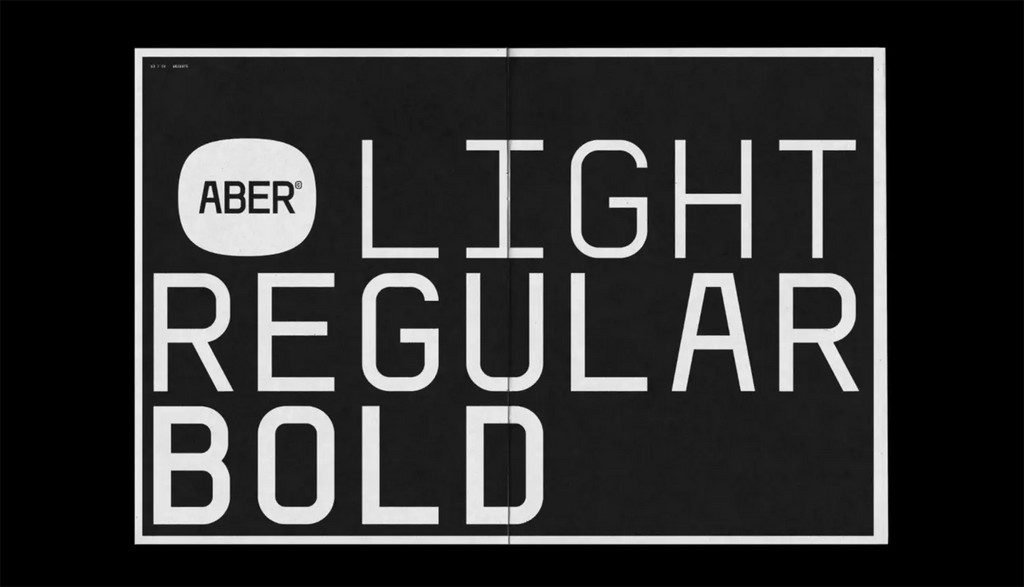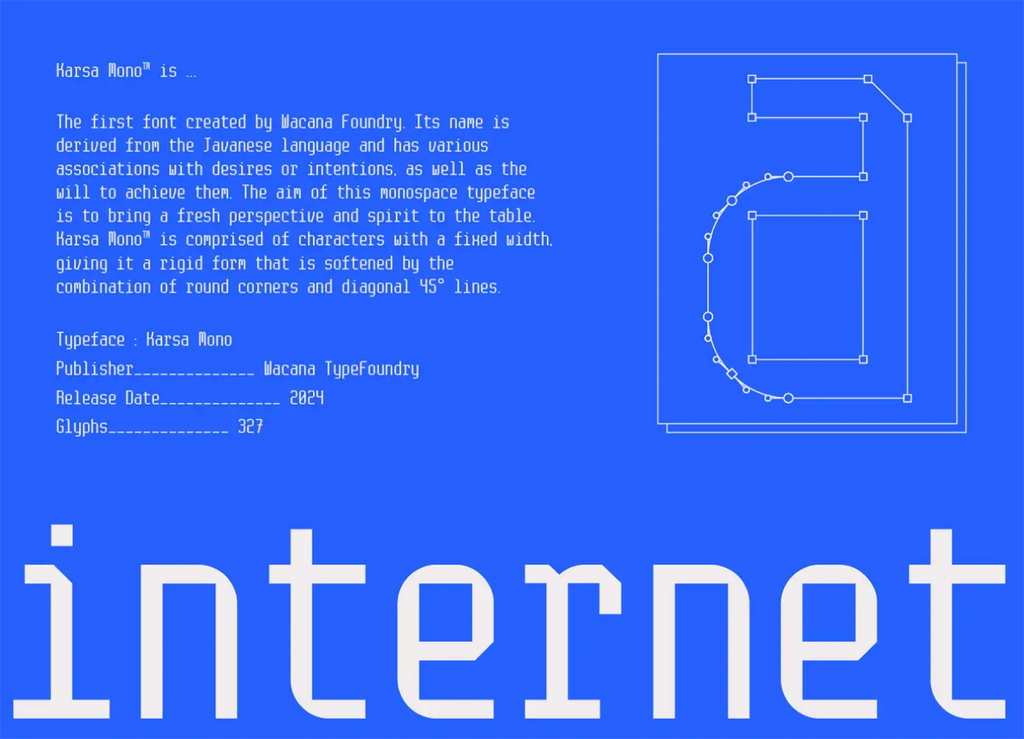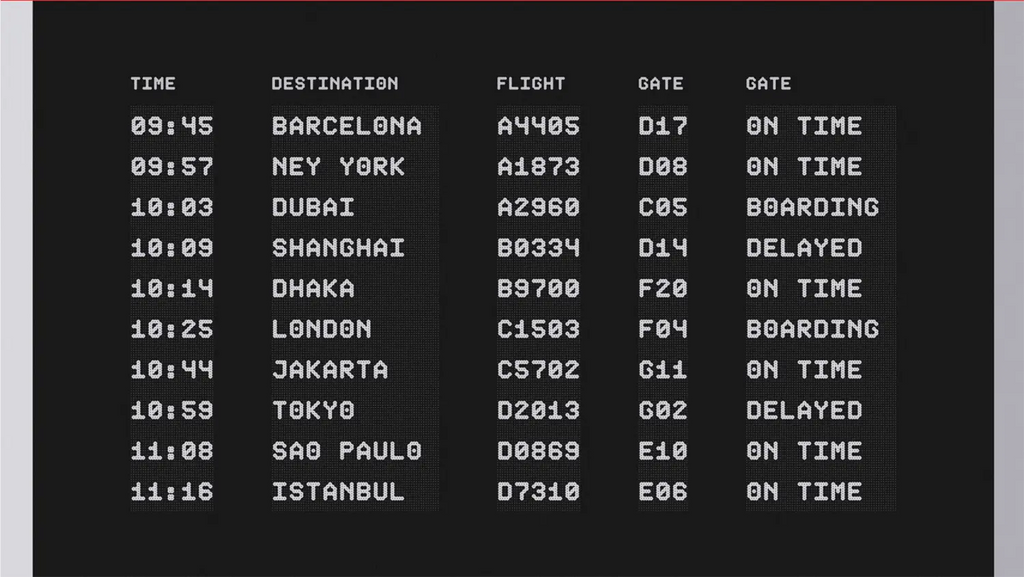
Monospaced Font: Basic Typography Guide for Designers
Monospaced fonts, also known as fixed-width or non-proportional fonts, hold a unique place in the world of typography. Unlike proportional fonts, where characters vary in width, monospaced fonts assign equal space to each character, creating a clean, grid-like alignment. This uniformity makes them ideal for certain applications, such as coding, data presentation, and technical design, where precision and clarity are paramount.
For designers, monospaced fonts offer more than just functionality; they provide a distinctive aesthetic that combines retro charm with modern minimalism. Rooted in the history of typewriters, these fonts evoke a sense of nostalgia while maintaining relevance in contemporary design. Their structured appearance makes them a favorite choice for projects that require a technical, innovative, or minimalist touch.
Typography, at its core, is about creating harmony between text and design. Monospaced fonts allow designers to experiment with spacing, rhythm, and contrast, offering creative possibilities for digital and print media alike. Whether used in branding, web design, or editorial layouts, they bring a unique balance of form and function to any project.
In this guide, we will explore the basics of monospaced fonts, their key features, and practical tips for designers looking to incorporate them into their work effectively.
Understanding Monospaced Fonts
Monospaced fonts, also referred to as fixed-width fonts, are a distinct type of typography where every character occupies the same amount of horizontal space. Unlike proportional fonts, where letters like "i" are narrower than "w," monospaced fonts ensure uniform spacing regardless of the character. This unique characteristic creates a structured and organized appearance, making monospaced fonts particularly effective for specific applications.
Historically, monospaced fonts gained prominence during the typewriter era. Their equal spacing was a mechanical necessity, as typewriter keys were designed to align characters uniformly. This legacy has carried forward into the digital age, where monospaced fonts are celebrated for their clarity and simplicity.
For designers, understanding monospaced fonts is essential for creating designs that require precision and consistency. They are commonly used in coding environments because the uniform spacing helps developers easily spot syntax errors. Additionally, monospaced fonts excel in tabular data and grid-based designs, where alignment is crucial.
Beyond functionality, monospaced fonts offer a unique aesthetic appeal. Their clean, minimalist look can add a retro or technical vibe to projects. When paired with proportional fonts, they can create compelling visual contrast, making them a versatile choice for modern typography.
Key Features Of Monospaced Fonts
Monospaced fonts stand out from other font types due to their distinctive characteristics, which make them an invaluable tool in typography and design. At their core, monospaced fonts ensure that each character—whether a letter, number, or punctuation mark—occupies the same width. This feature creates a visually consistent and balanced appearance, making them ideal for tasks that demand precision.
One key feature of monospaced fonts is their uniform spacing, which enhances readability in structured environments. This is particularly useful in programming, where consistent character alignment allows developers to read and debug code more efficiently. Similarly, their spacing makes them ideal for tabular data, financial reports, and other applications where alignment is critical.
Monospaced fonts are also known for their simplicity and clarity. The lack of proportional adjustments means fewer distractions, allowing the reader to focus on the content. This clarity is why monospaced fonts are frequently used in technical documents, command-line interfaces, and user manuals.
Another notable feature is their aesthetic versatility. Monospaced fonts evoke a vintage typewriter feel while fitting seamlessly into modern minimalist designs. This blend of retro and contemporary styles gives designers a broad range of creative applications, from branding to editorial layouts.
Popular Uses Of Monospaced Fonts
Monospaced fonts have carved out a niche in various industries due to their practical and aesthetic qualities. Their equal spacing and structured appearance make them indispensable for a range of applications, both functional and creative.
One of the most prominent uses of monospaced fonts is in coding and programming. The uniform spacing helps developers easily read and align code, reducing errors and enhancing efficiency. Integrated development environments (IDEs) and text editors like Visual Studio Code and Sublime Text often default to monospaced fonts for this reason.